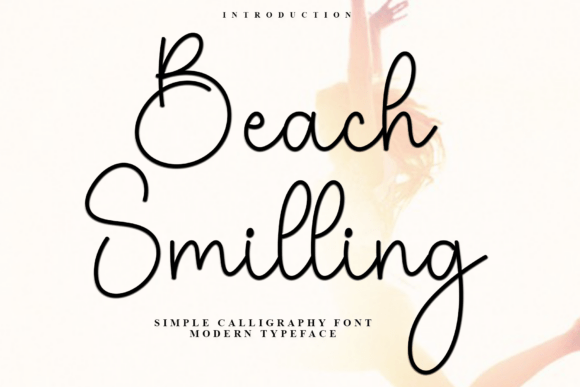
Unleashing the Joy of Beach Smilling Font
Have you ever stumbled upon a font that makes you smile? Maybe it’s the quirky charm of a handwritten note or the playful vibe of a summer poster. For designers, finding that perfect font can be a game-changer. It’s a moment that sparks creativity and sets the tone for a project. For those seeking a font that embodies the carefree spirit of the beach, look no further than the Beach Smilling Font.
This charming font is designed to evoke feelings of warmth and friendliness, making it perfect for personal projects, invitations, and social media graphics. Its round, playful strokes create a relaxed and approachable feel that’s sure to engage your audience. Whether you’re a seasoned designer or just starting out, the Beach Smilling Font is a valuable addition to your toolkit.
Beach Smiling Font Key Features
- Unique Characteristics: The font features a distinctive, hand-drawn design with a beach-inspired theme, making it perfect for projects related to summer, relaxation, or coastal environments.
Designer Review: Beach Smilling Font
I’ve had the chance to work with the Beach Smilling Font, and I have to say it’s a lovely addition to any beach-themed project ✨. The font’s friendly, approachable feel immediately evokes a sense of sun-kissed fun and relaxation.
The Beach Smilling Font excels at:
- Conveying a carefree, summery vibe
- Being highly legible in various contexts (headers, body text, signage)
- Supporting a range of emotions, from playful to calm
However, there are some limitations to keep in mind ⚠️:
- Lack of bold weight options, which may limit its use in headlines
- No italics or oblique options, which could make it less versatile
- Potential issues with kerning in certain combinations of letters
Overall, the Beach Smilling Font is a great choice for projects that need a lighthearted, beachy feel. While it may not be the most comprehensive font, its strengths make it a solid addition to any designer’s toolkit. With some careful consideration of its limitations, I think this font has the potential to bring a smile to users’ faces ✨.
Beach Smiling Font: A Practical Application Guide
Tips for Getting the Most Out of Beach Smiling Font
To get the most out of the Beach Smiling Font, try the following:
- Use it for beach-themed designs, such as invitations, posters, or social media graphics.
- Combine it with beachy images, such as palm trees or waves, to create a cohesive look.
The Beach Smiling Font is perfect for:
- Summer-themed events, such as beach parties or pool parties.
- Beach-themed marketing campaigns, such as promotions for surf schools or beach resorts.
- Personal projects, such as designing a beach-inspired journal or planner.
Alternatives to Beach Smilling Font
Pacifico is a beautiful, elegant script font that is perfect for adding a touch of sophistication to your designs. It is ideal for use in branding, invitations, and other creative projects where a personal and unique touch is desired.
Compared to Beach Smilling Font, Pacifico has a more refined and polished look, making it suitable for a wider range of applications. While Beach Smilling Font is more playful and casual, Pacifico is more formal and elegant.
Great Vibes is a modern, handwritten font that is perfect for adding a fun and carefree vibe to your designs. It is ideal for use in advertising, social media, and other creative projects where a youthful and energetic feel is desired.
Compared to Beach Smilling Font, Great Vibes has a more energetic and playful feel, making it suitable for projects that require a lot of movement and energy. While Beach Smilling Font is more relaxed and casual, Great Vibes is more dynamic and lively.